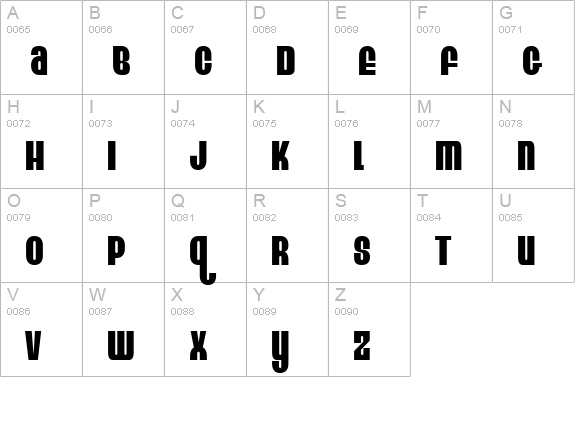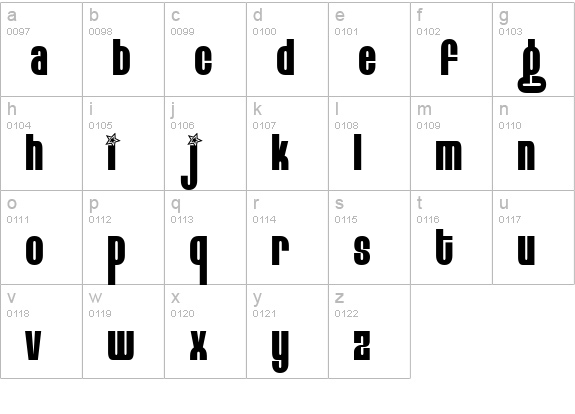
TR Eight Track Font Details
TR Eight Track is a modern and stylish font that exudes a unique blend of sophistication and edginess. Its bold and geometric design makes it perfect for eye-catching headlines, logos, and branding materials. The clean lines and sharp angles give this font a contemporary feel that is sure to make a statement. The best part about TR Eight Track font is that it is completely free to download at FontsMarket.com. This means you can add this versatile typeface to your collection without having to spend a dime. Whether you're a designer looking to experiment with a new font or a business owner in need of a fresh look for your marketing materials, TR Eight Track is a fantastic choice that won't break the bank. Don't miss out on the opportunity to enhance your projects with the sleek and modern aesthetic of TR Eight Track font. Download it for free today and elevate your designs to the next level.